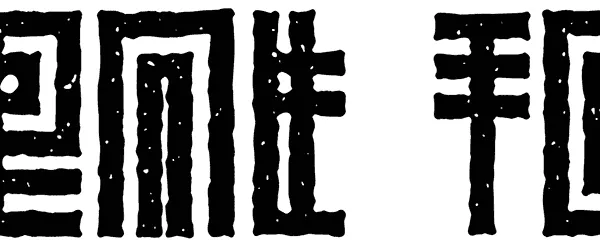
Kagestone Font
Kagestone is an excellent font for designers interested in historical and classic spaces who want to use a magnificent font to convey their message.
This contains a lot of personalities, and you can add them to your content. As a result, even without numbers, it looks versatile and is ideal for designing posters, advertisements, book covers, and albums. So if you want a unique font that will turn your customers towards you, try Kagestone for once.